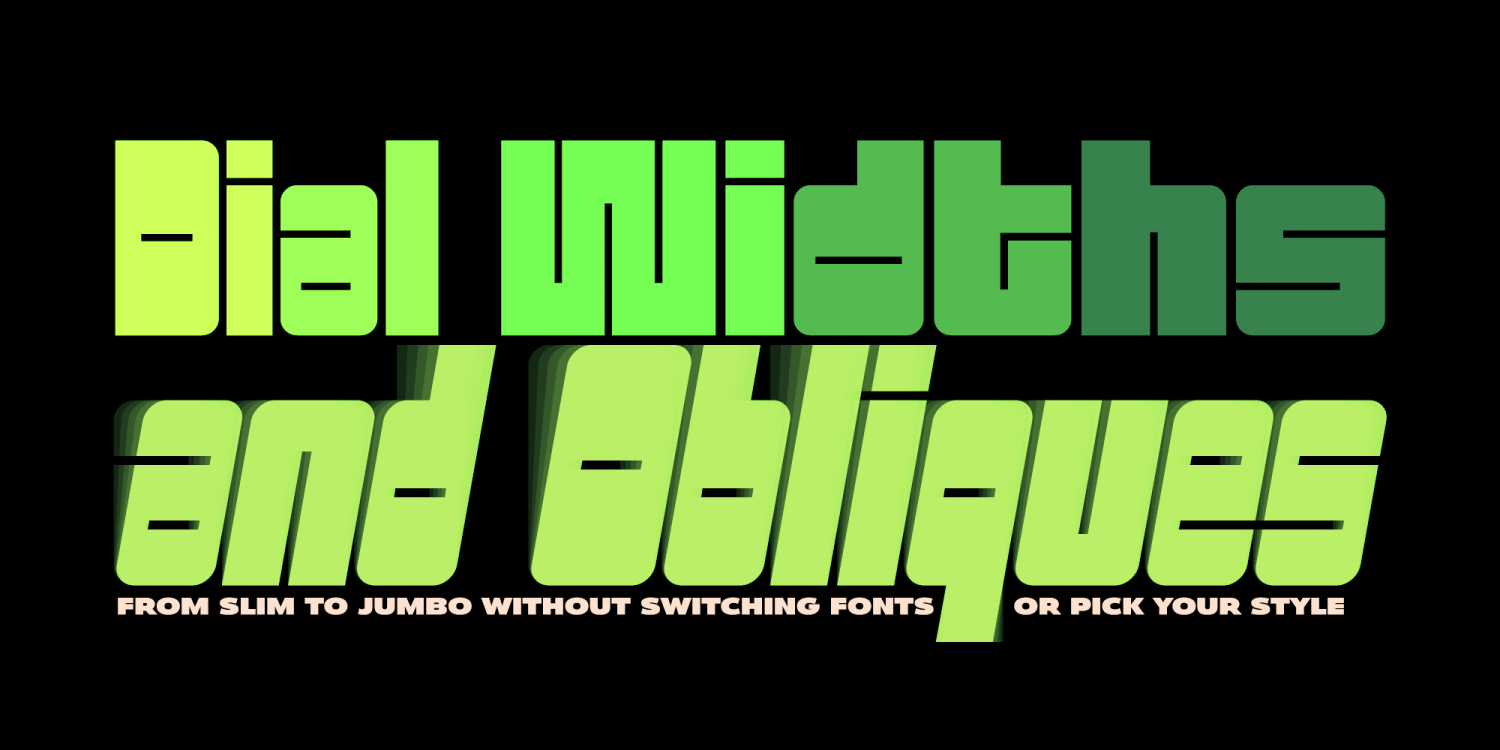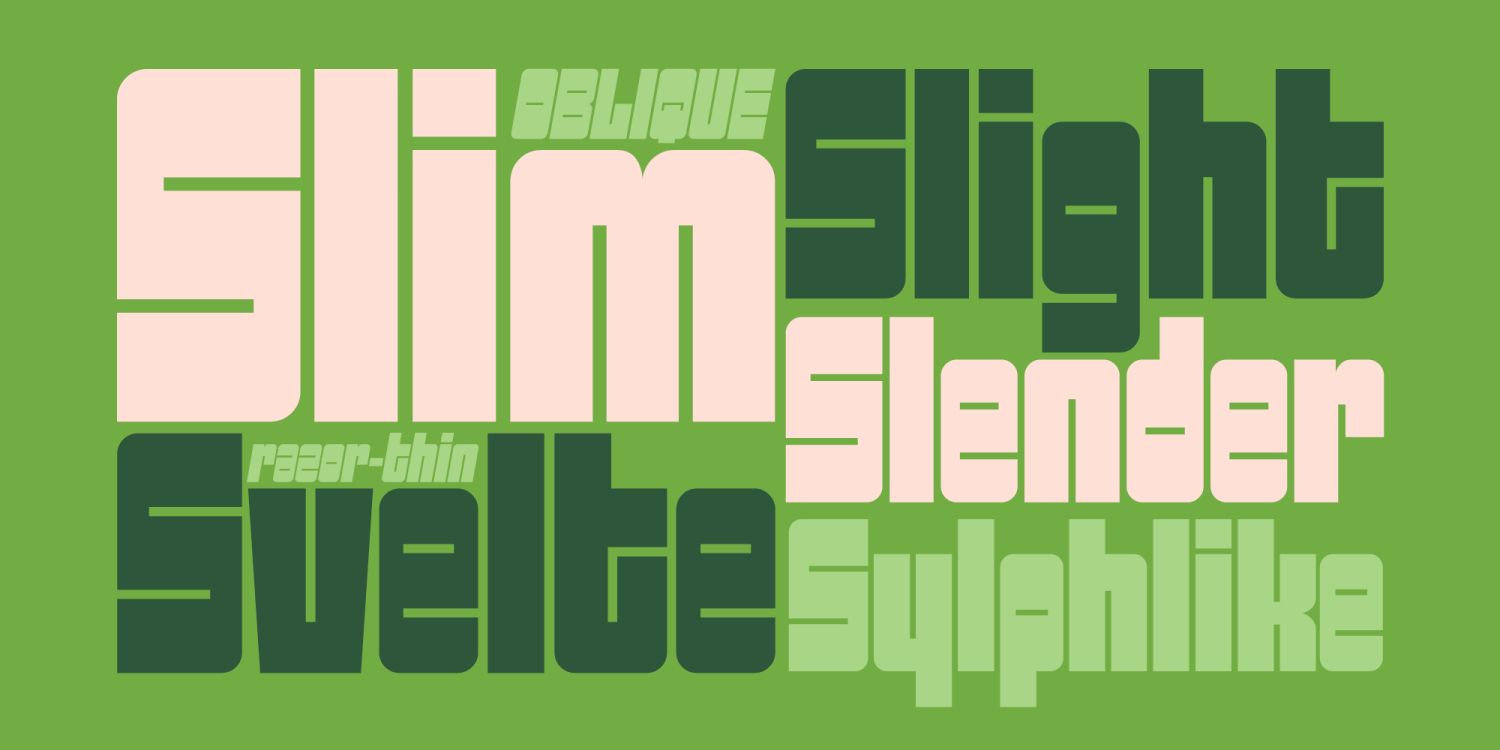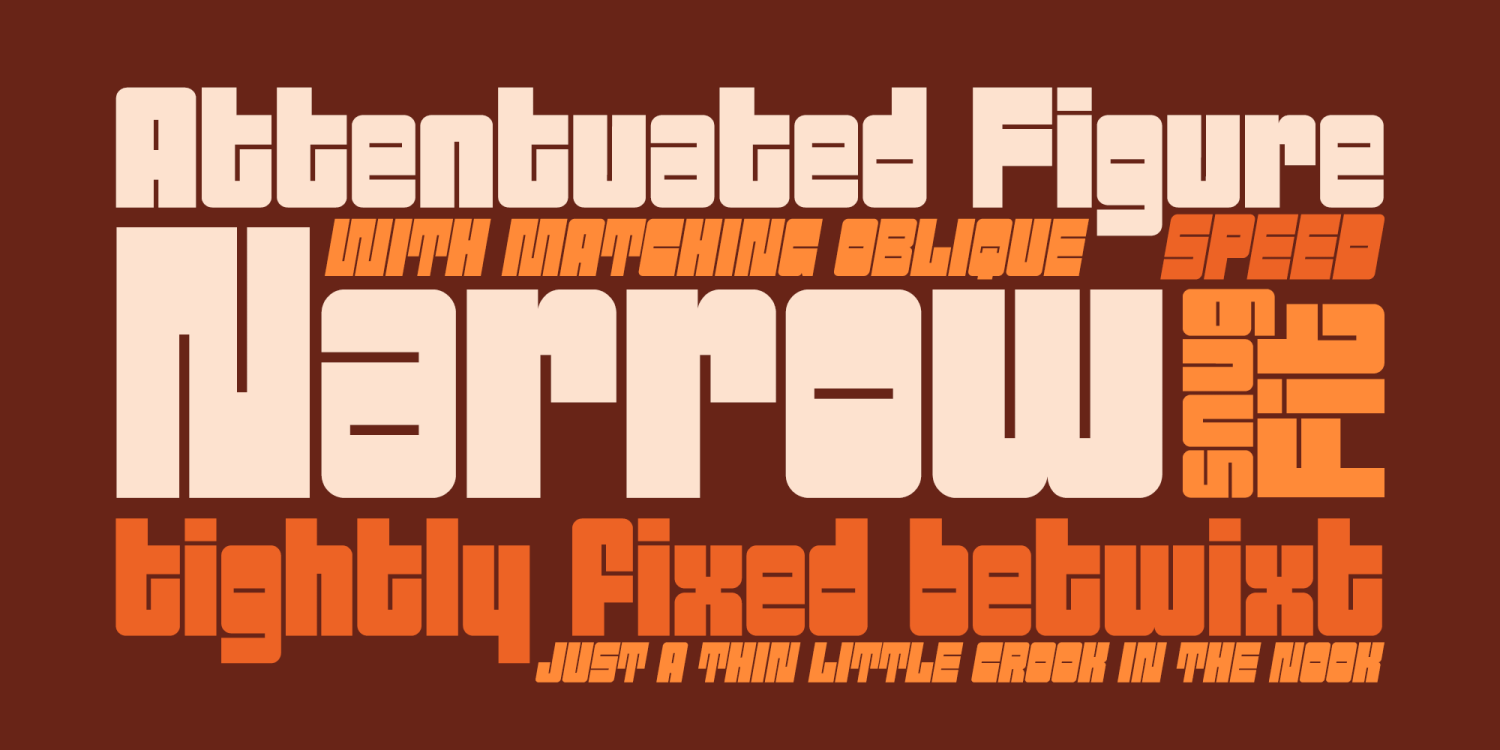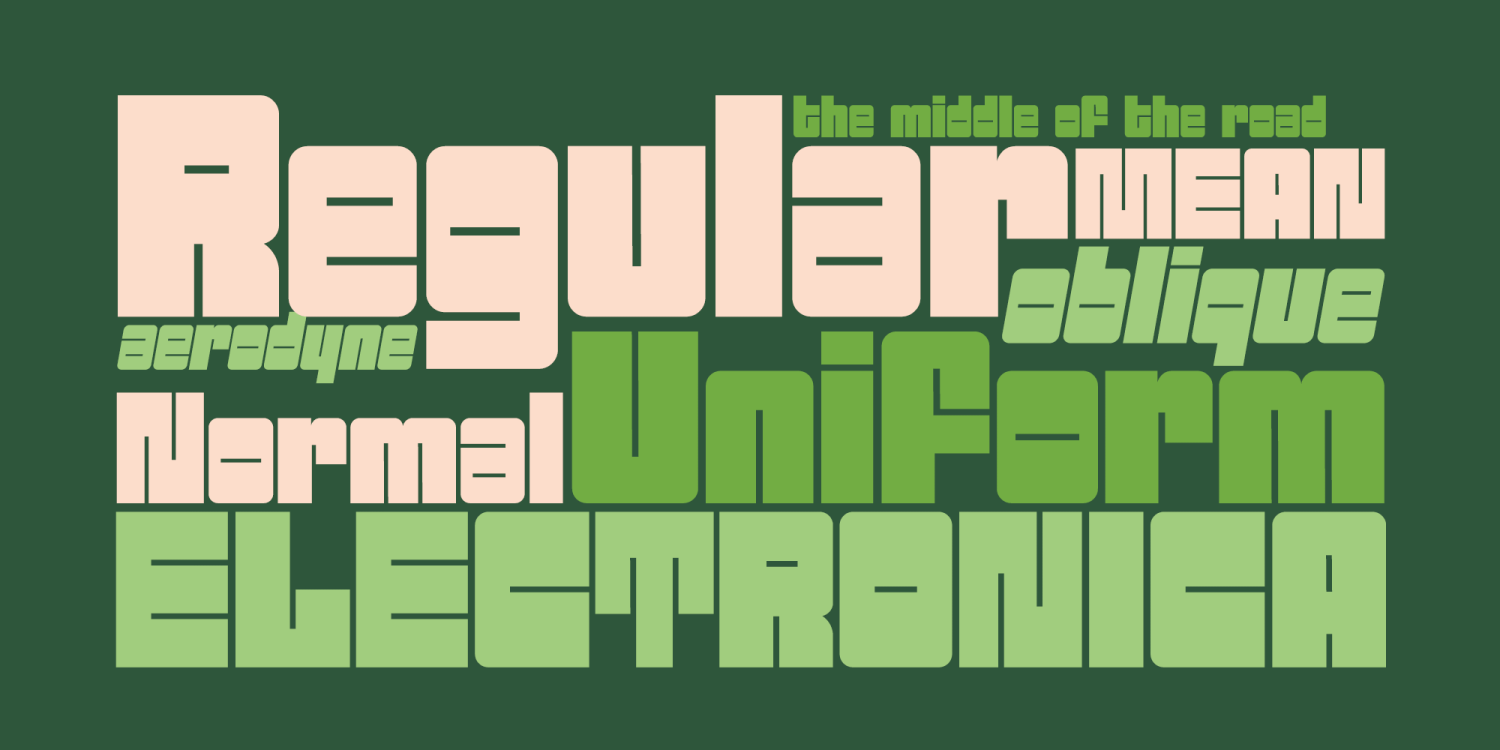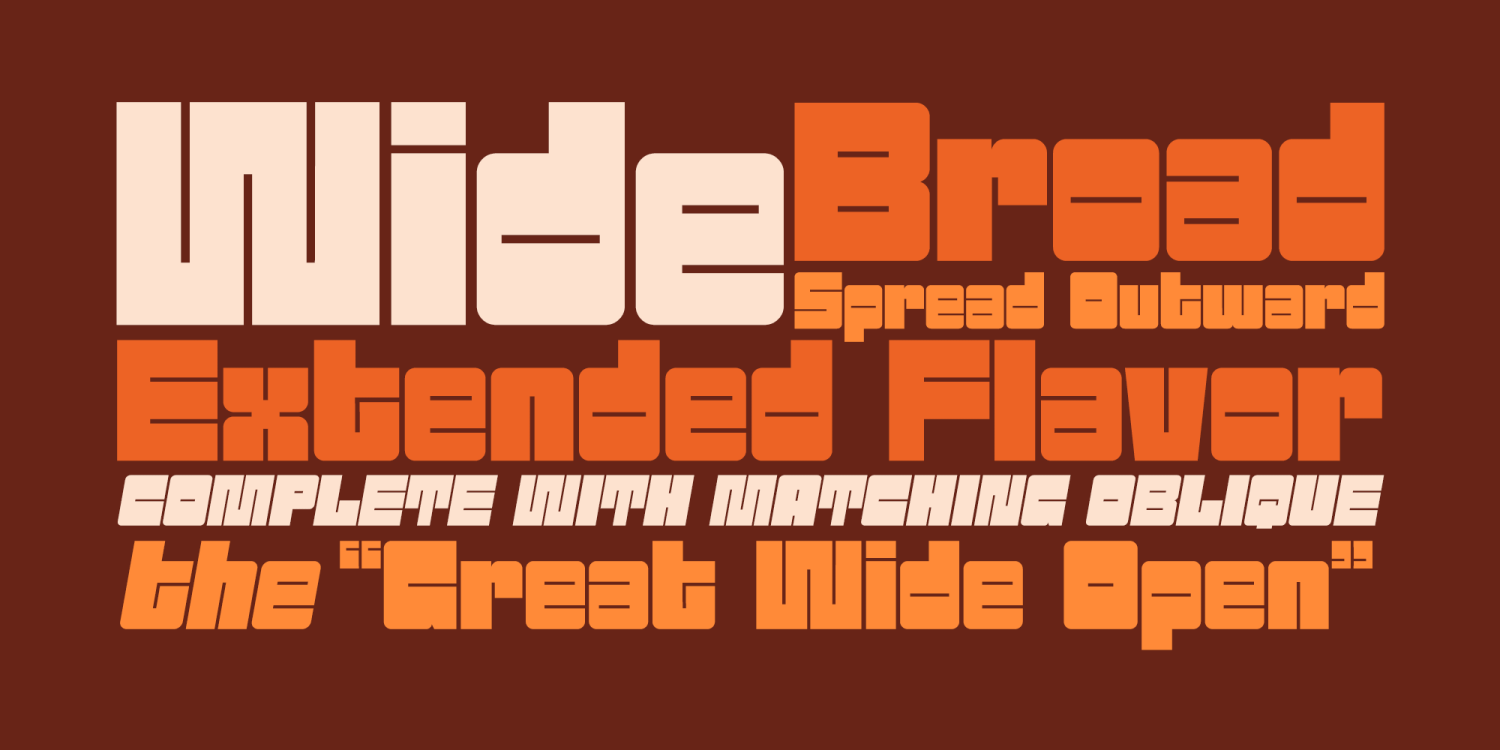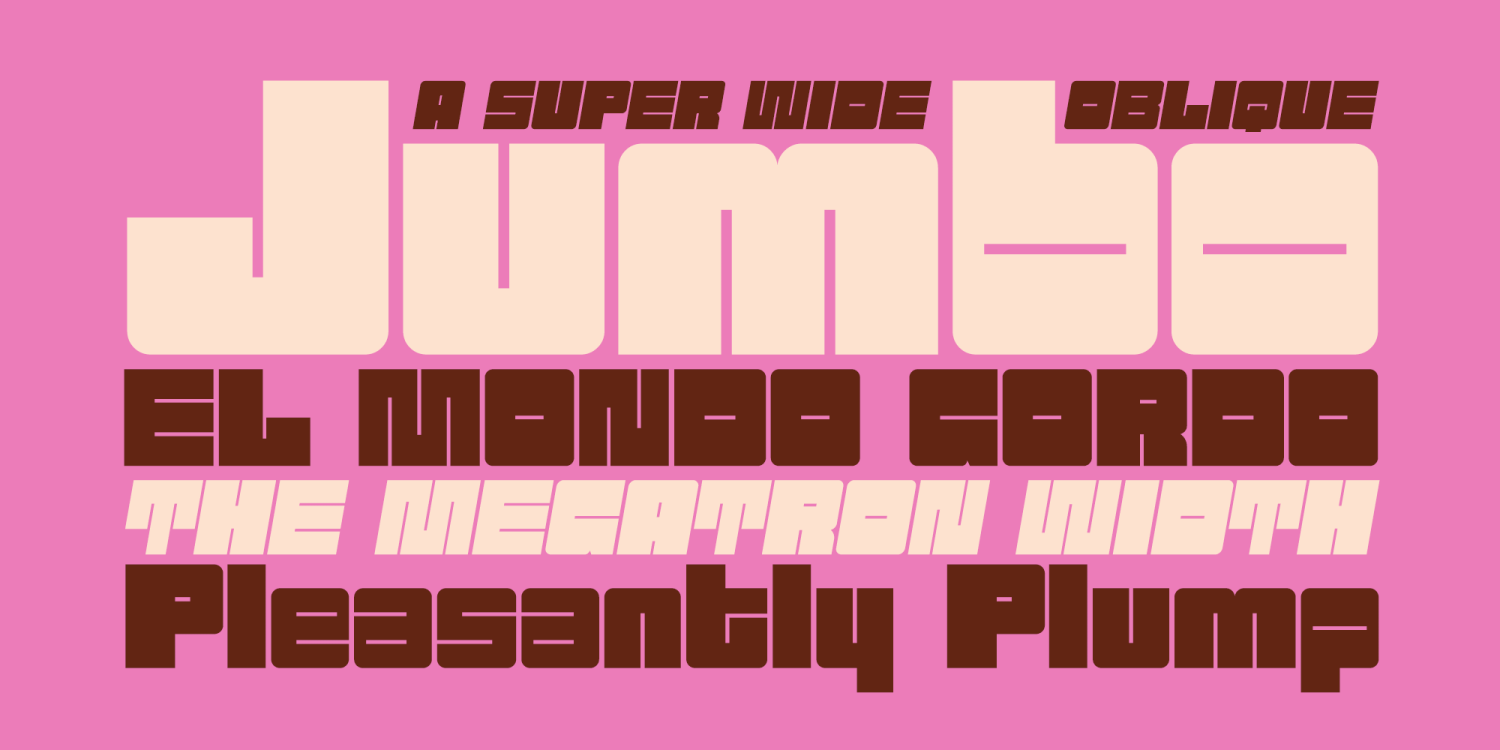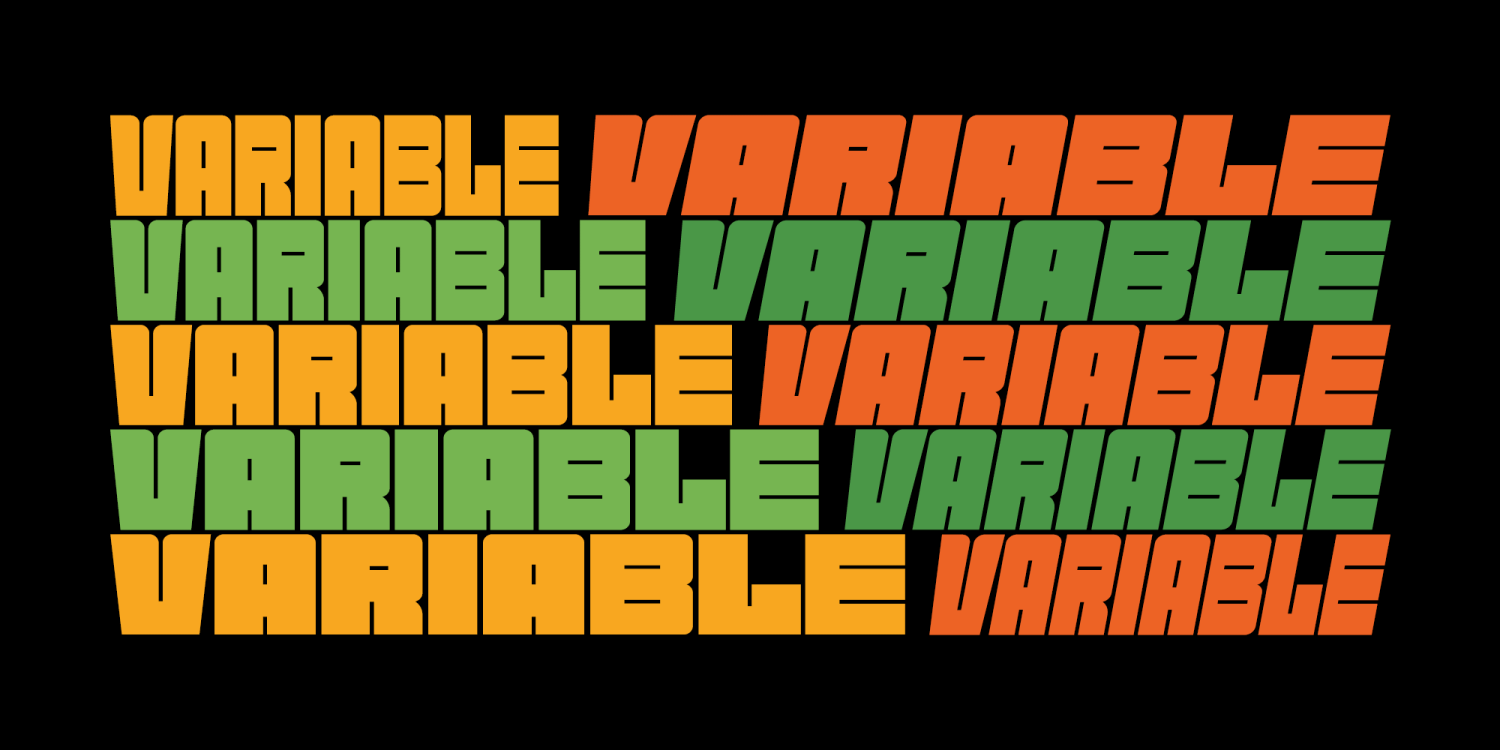
Sackem PB Complete
Unlock the entire Sackem universe in one powerful package.
The Sackem PB Complete Bundle combines the full 10-style static family with the flexible Sackem Variable Font, giving you both traditional reliability and modern, interpolation-driven control in a single purchase.
Sackem began as a revival of the classic Lettergraphics film typeface Benman Jumbo and evolved into a bold geometric display system defined by dense mechanical forms and famously tight counters. The static family delivers carefully crafted, production-ready styles — from the ultra-compact Slim widths to the commanding Jumbo originals — while the Variable Font lets you glide smoothly across that entire design space from a single file.
Whether you prefer working with fixed styles, custom-tuned instances, or responsive layouts, this bundle gives you every option...
Seamless interpolation for custom widths and slants
Perfect for posters, logos, packaging, sports graphics, advertising, and bold branding
Bold, mechanical, and irresistibly chunky, Sackem PB Complete is the ultimate version of this heavyweight geometric system — built for designers who want total control and total impact.